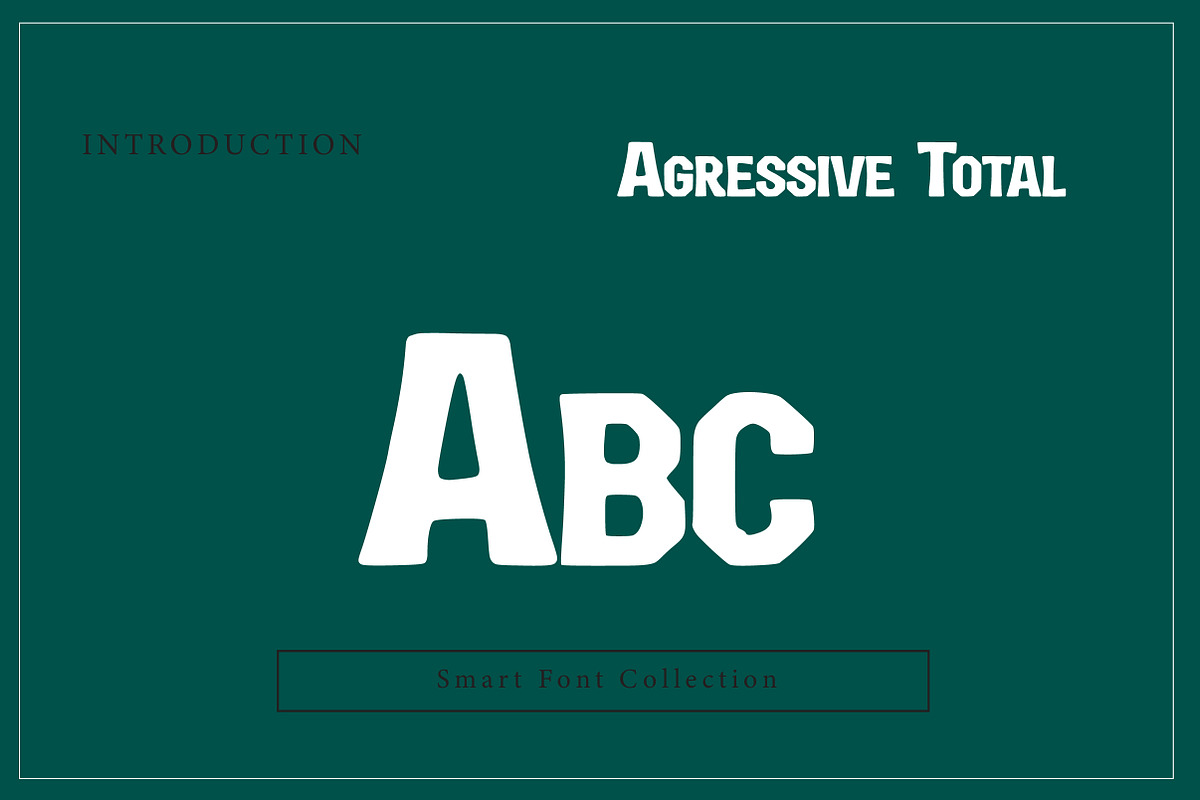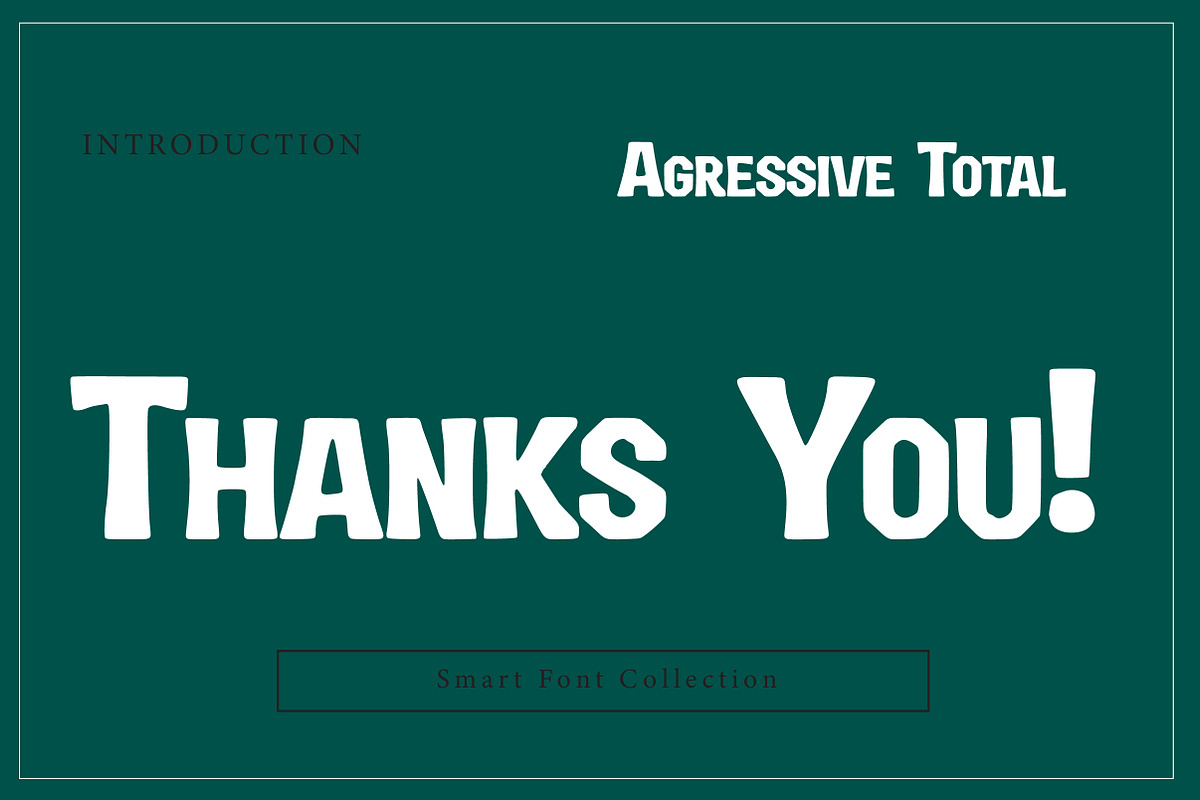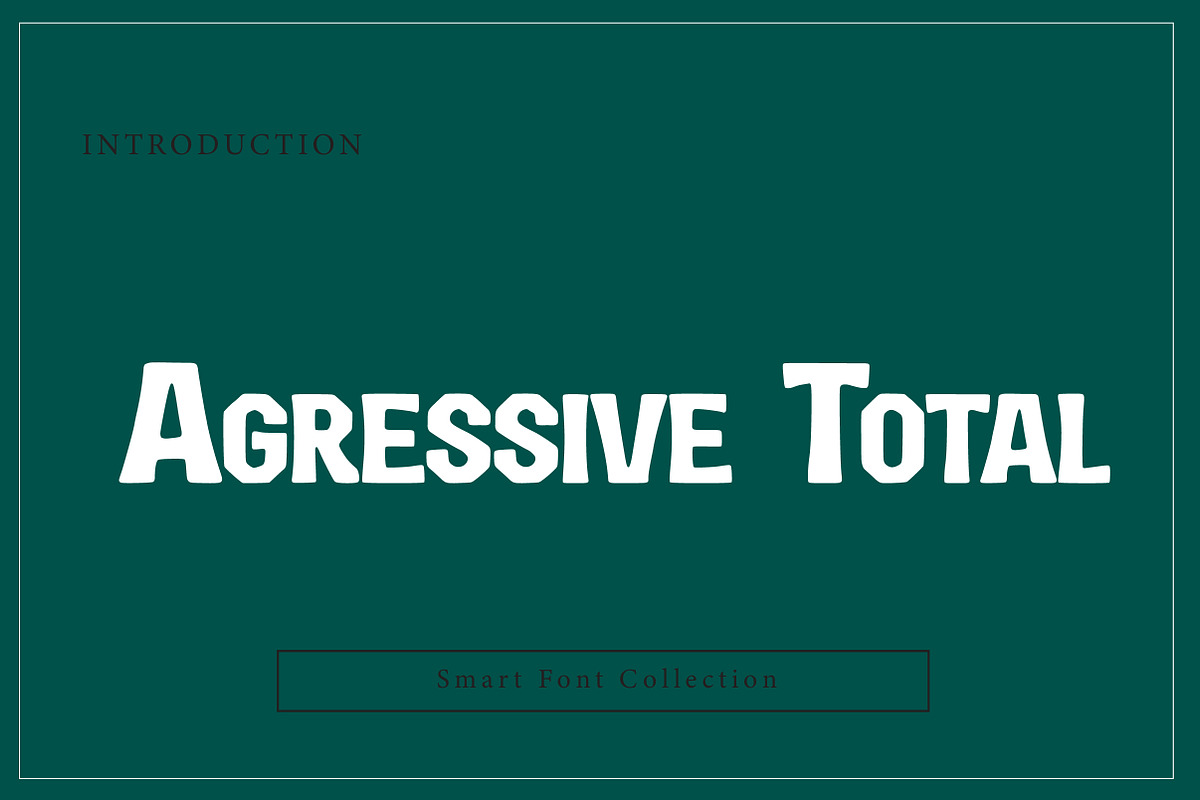
Agressive Total
Agressive Total is a bold, heavy, and expressive display typeface with a raw and powerful attitude. The font features thick strokes, uneven shapes, and a rough handcrafted style that delivers strong visual impact. Its aggressive character makes it perfect for eye-catching designs that demand attention and energy. This font works exceptionally well for streetwear designs, gaming titles, posters, logos, sports branding, album covers, comics, and edgy graphic projects where strength, intensity, and dominance are essential.